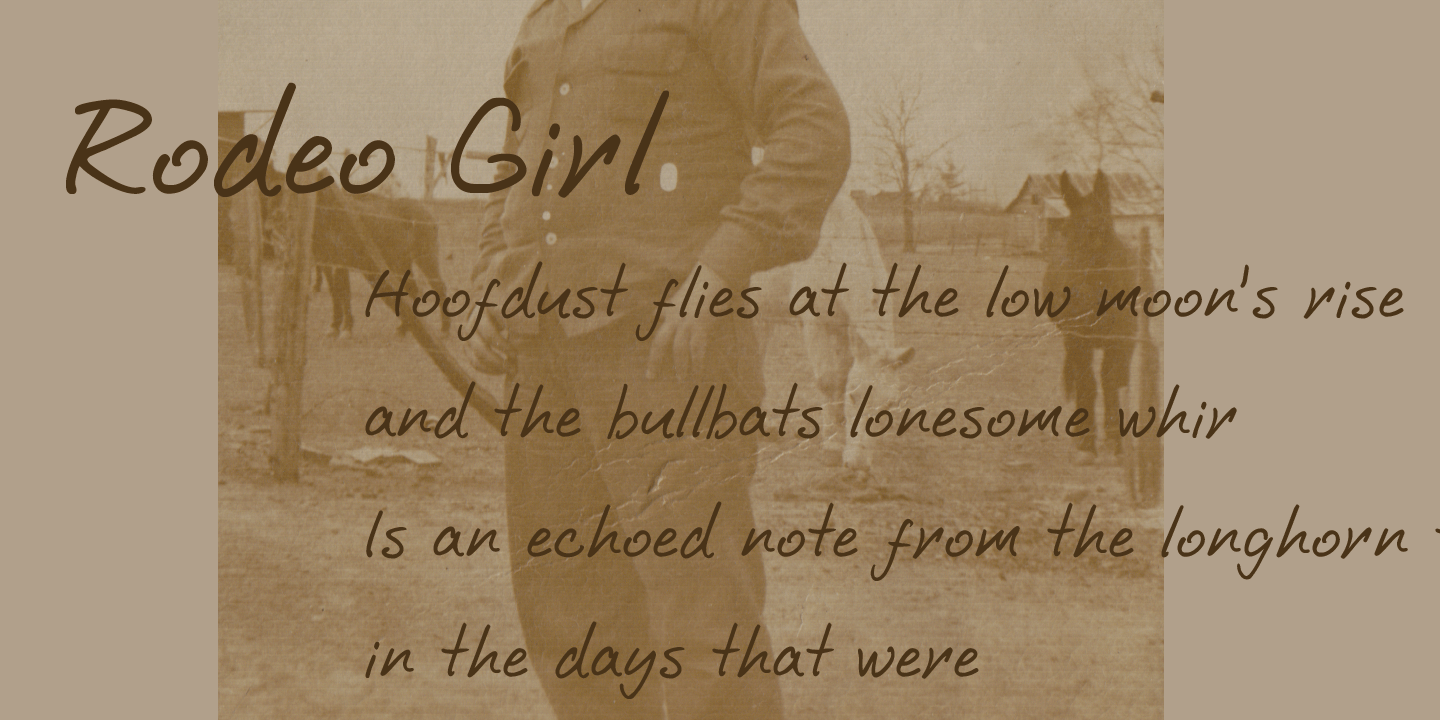
HomeFont BrosHandwrittenRodeo Girl HandwrittenScripts: Casual Rodeo Girl FacebookXPinterestWhatsApp 1 of 1 About Rodeo Girl is Blue Vinyl\’s first handwriting font! It\’s perfect when you need a loose handwritten look. Rope it in today!  DOWNLOAD NOW People also explored Fruit Acid Font True Love Font Following Font Star over Font Black Coffee Mug Mockup with White Spiraea Flowers Rossabela Font Prester John Font Fragile Script Font Srengngee Font 299 0 TagsRodeo Girl Font Previous articleFiendstarNext articleCrossfit Core LEAVE A REPLY Cancel reply Comment: Please enter your comment! Name:* Please enter your name here Email:* You have entered an incorrect email address! Please enter your email address here Website: Save my name, email, and website in this browser for the next time I comment. Personal Use Free I Am Exceptional Personal Use Free Read more about this font Good Mood Personal Use Free Read more about this font Kitchen Blue Personal Use Free Read more about this font Burnstown Dam Personal Use Free Read more about this font BLOG Using Fonts in Digital Marketing: Tips to Strengthen Your Brand Identity In the realm of digital marketing, every visual element plays a crucial role in shaping a brand's identity, and fonts are no exception. The... How to Cut Any Font on Cricut: Convert a Font to SVG (Free) 5 Fonts That Will Dominate Design Trends in 2026 Modern Sans-Serif Fonts That Brands Love in 2025